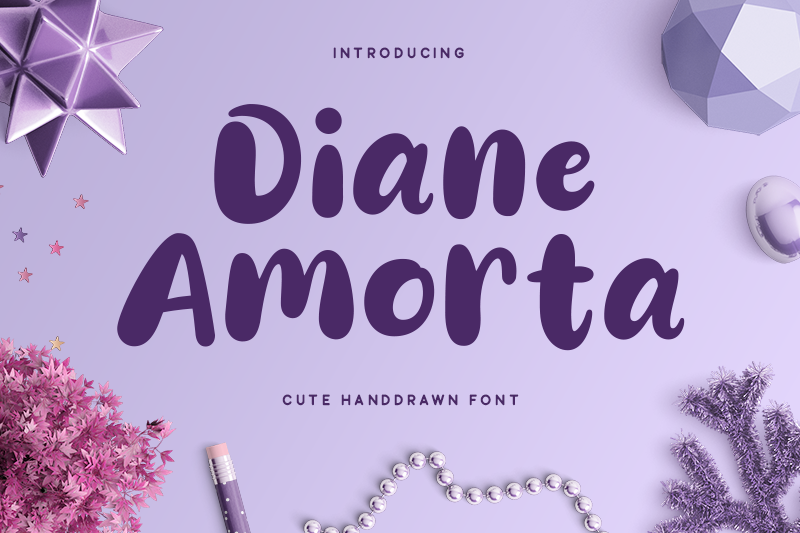
Preview and download Diane Amorta Font. Created by Akhmad Reza Fauzi in Script Various styles with Free for personal use license.
This font is for PERSONAL USE ONLY! Diane Amorta is a cute and simple script font with authentic lettering. --------------------------------------------------------- Any DONATION will be appreciated https://www.paypal.me/akhmadrezafauzi Purchase COMMERCIAL LICENSE: https://grezlinestudio.com/product/diane-amorta-font/ Visit my store for special price and discount : https://grezlinestudio.com If you have any questions, feel free to contact me : grezline.studio@gmail.com |